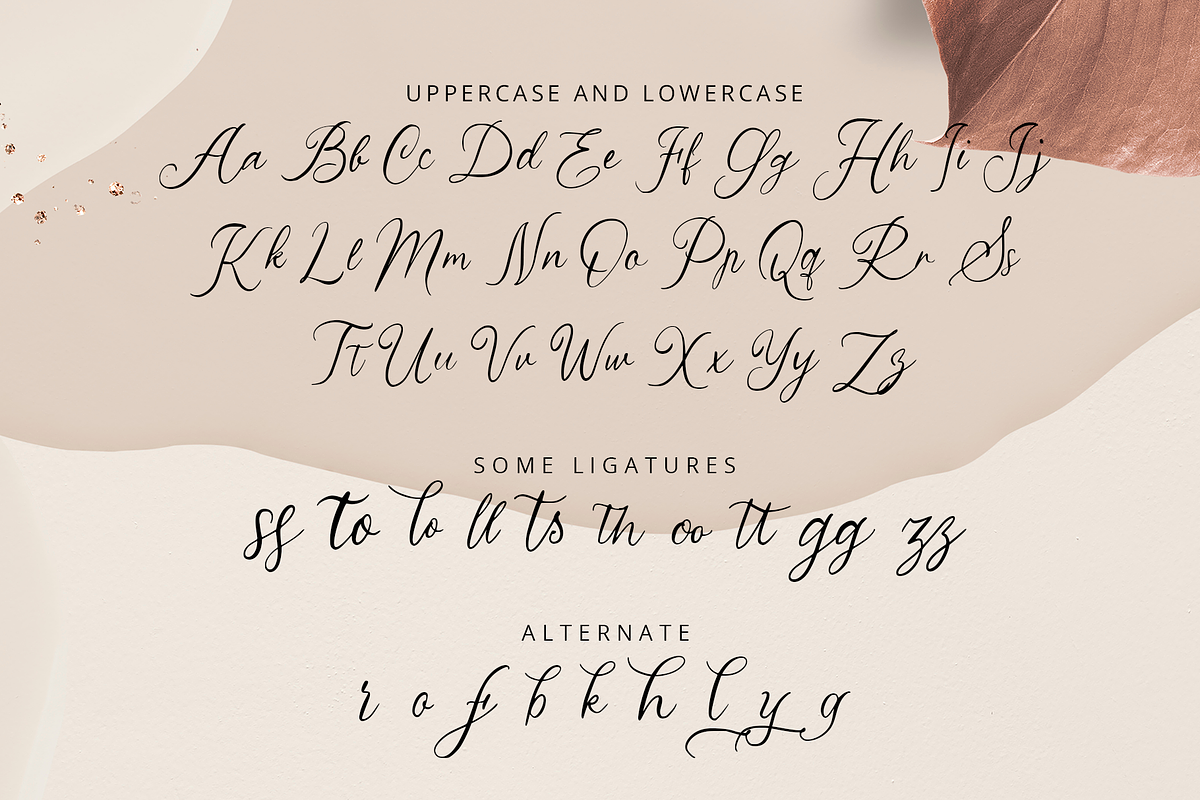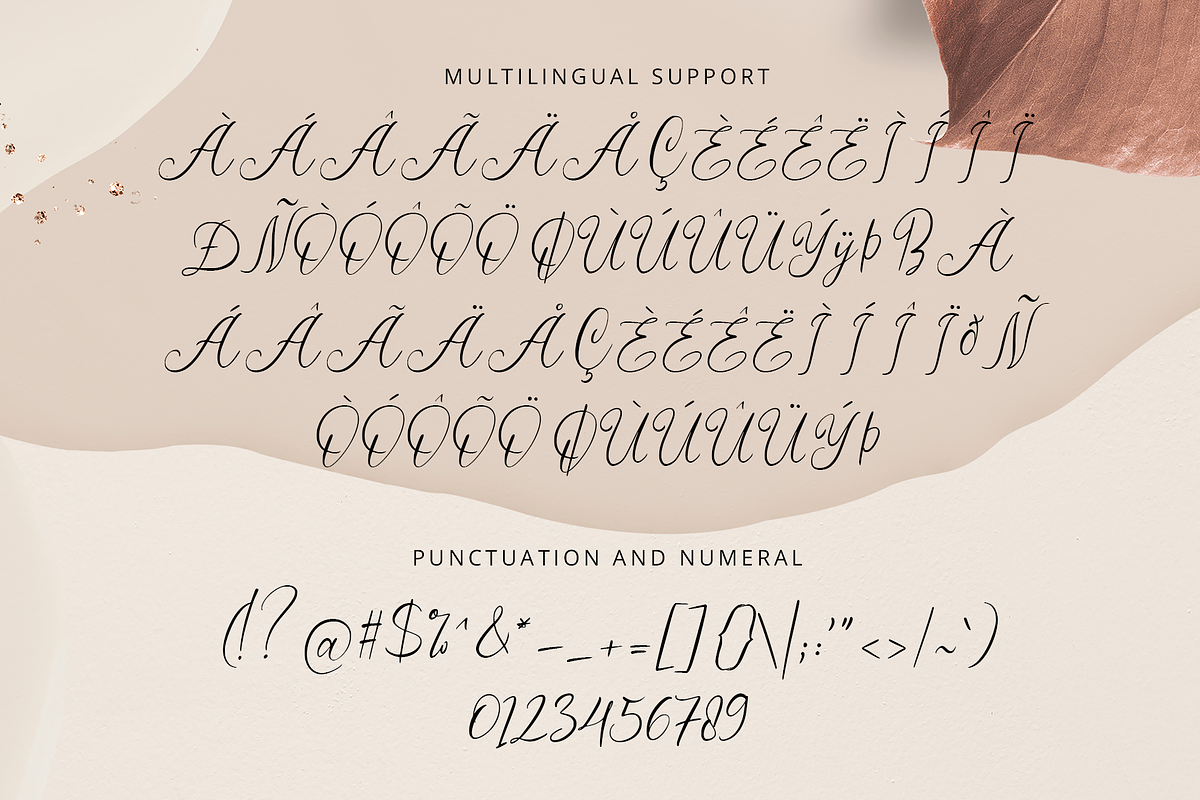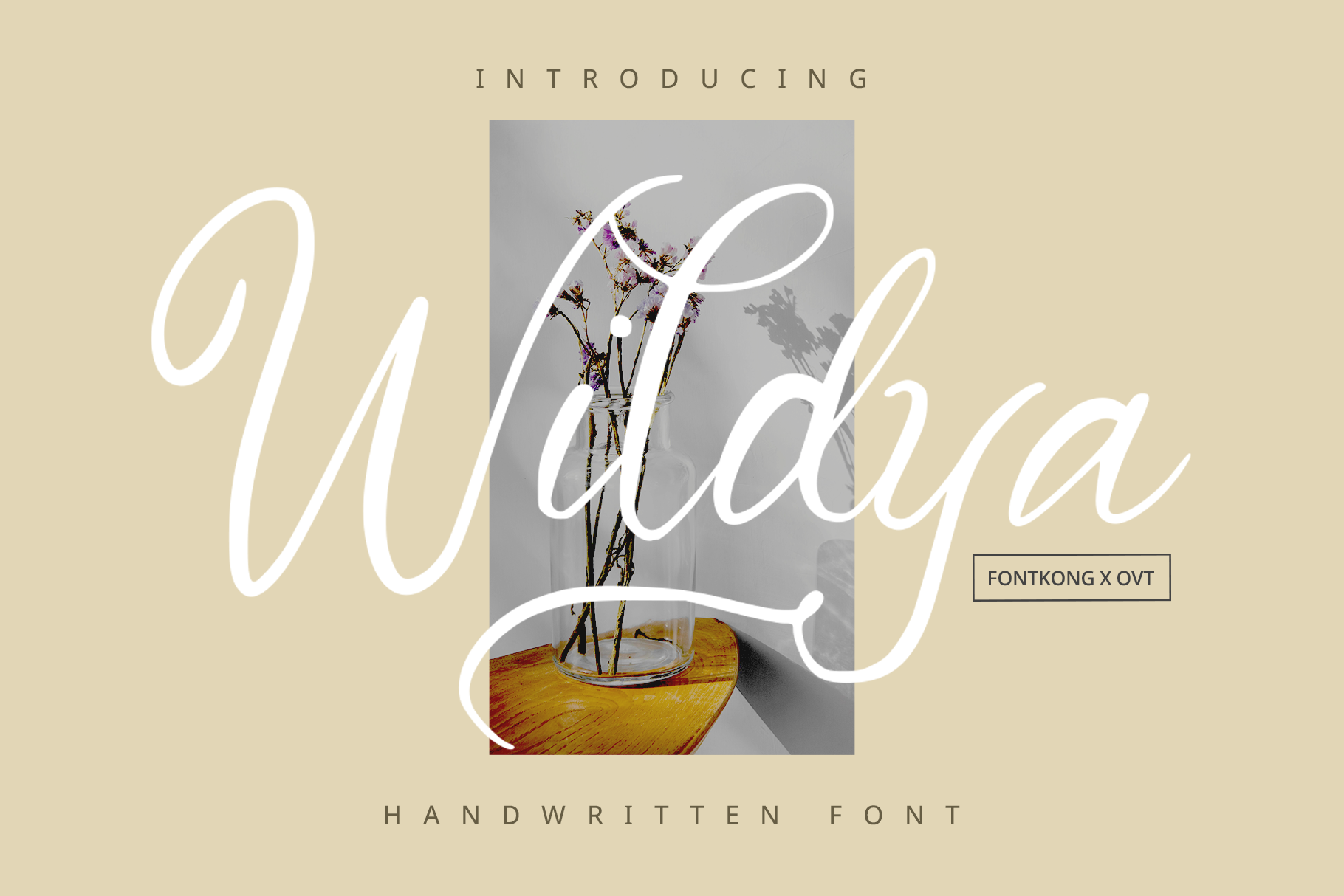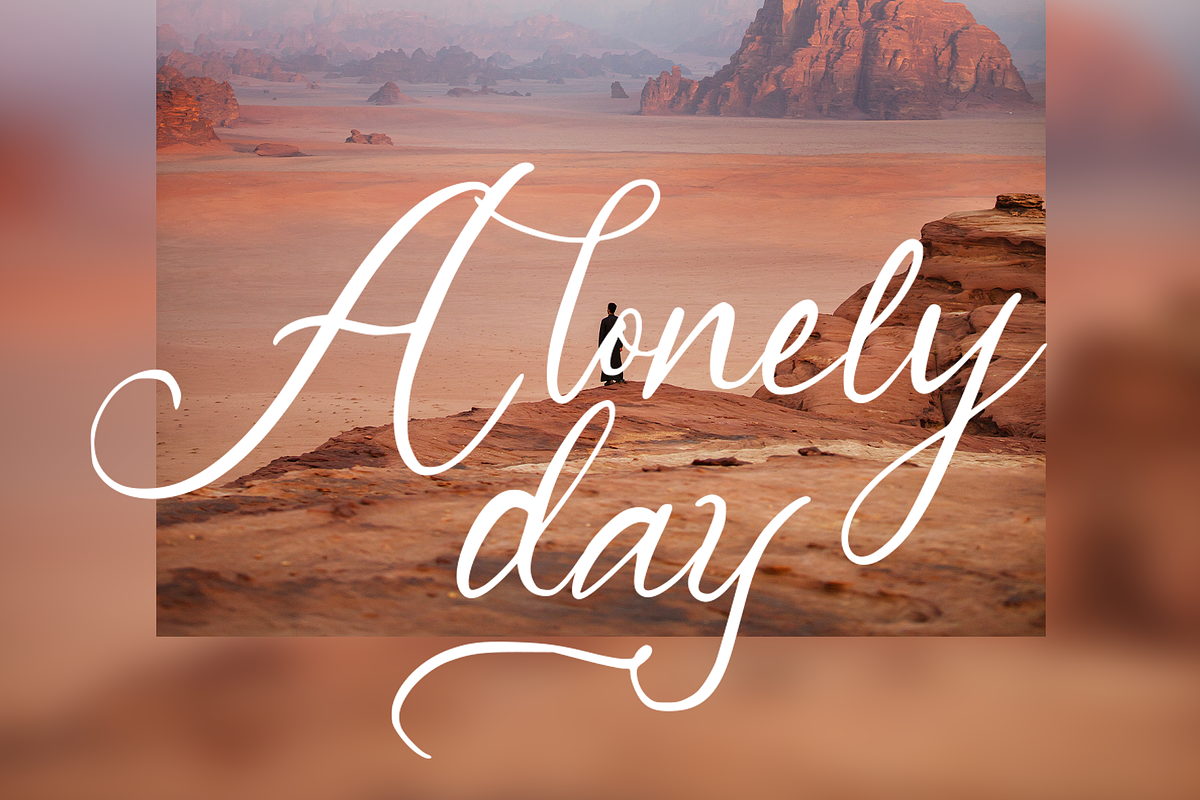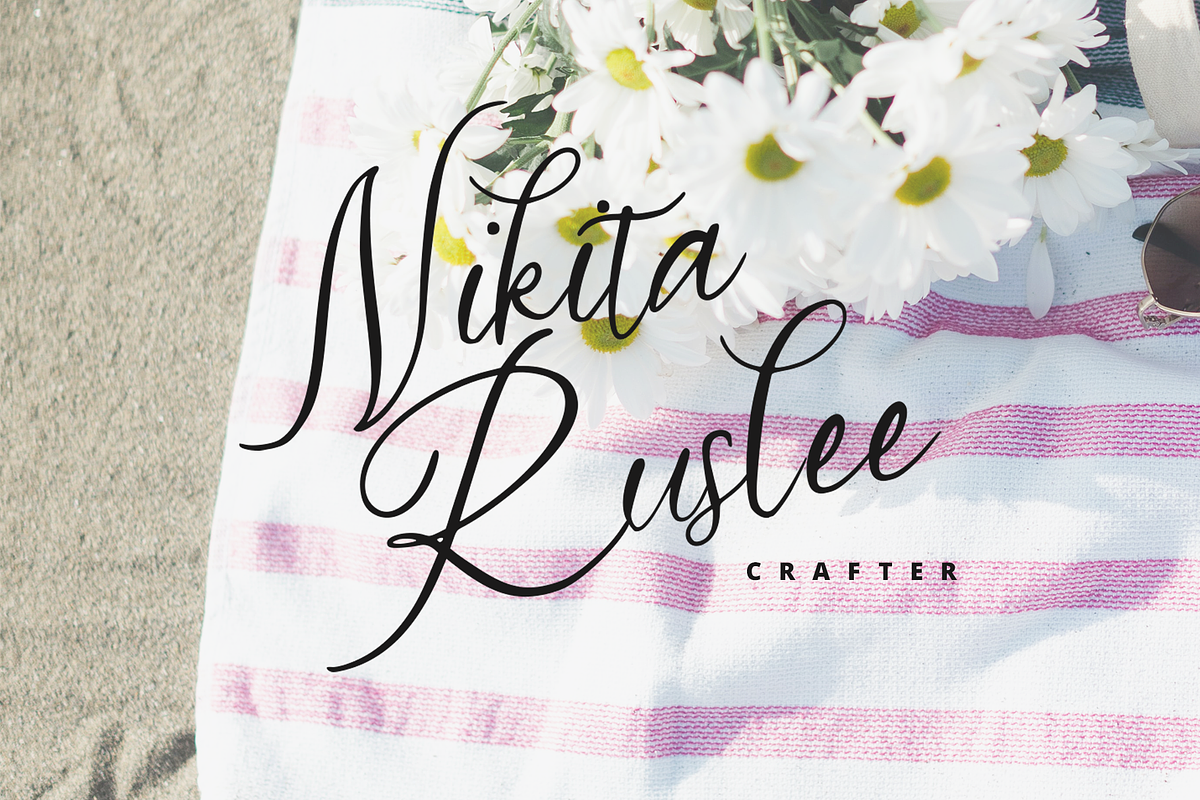
Wildyaa - Handwritten Font
Introducing "Wildyaa," a handwritten font that brings untamed creativity and dynamic energy to your design projects. Perfect for designers, artists, and creatives who want to infuse their work with a bold and spontaneous touch, Wildyaa offers a free-spirited and lively script that captures the essence of unrestrained handwriting.
Ideal for posters, quotes, social media graphics, branding, and packaging, Wildyaa's raw and energetic strokes provide a unique and expressive aesthetic. Each character is meticulously crafted to reflect the authenticity and vigor of hand-drawn lettering, ensuring your designs stand out with personality and flair.
The "Wildyaa" font includes a full set of uppercase and lowercase letters, numbers, punctuation marks, and a variety of ligatures and stylistic alternates. This versatility allows for effortless integration into various design projects, from eye-catching headlines to vibrant branding elements.
Embrace the wild side of creativity with Wildyaa, the handwritten font that adds a burst of energy and originality to every design.